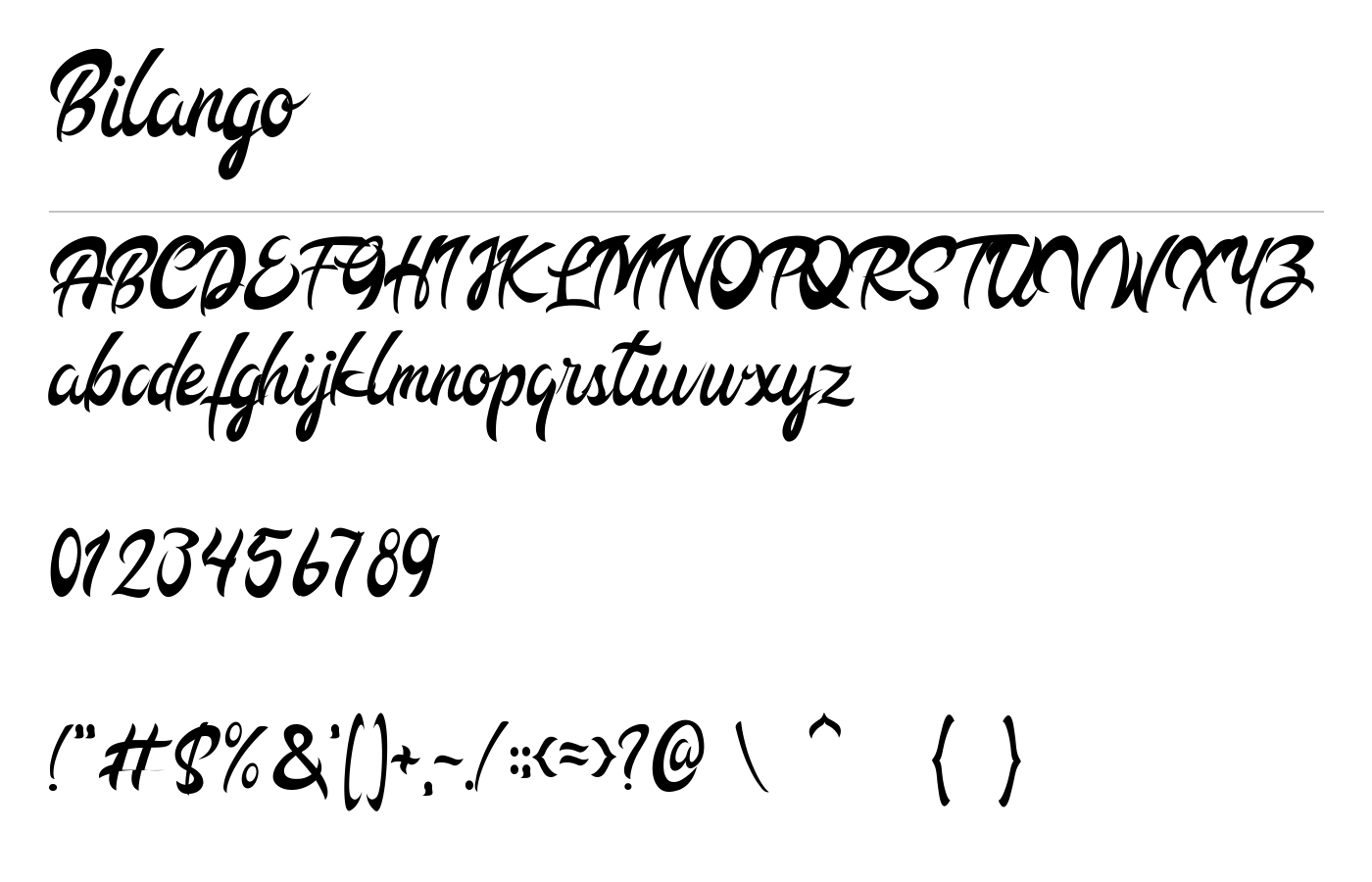
Bilango is a lively script font with a bold, slightly condensed style that captures energy and elegance. Its smooth, sweeping strokes and high contrast give it a modern, handwritten feel perfect for branding, invitations, and eye-catching headlines that need a personal yet stylish touch. This font works beautifully where a touch of casual sophistication and dynamic flair is desired.
Bilango Font
About Bilango Font
| Font family | Bilango Font |
| Designer | Surya Iswandi |